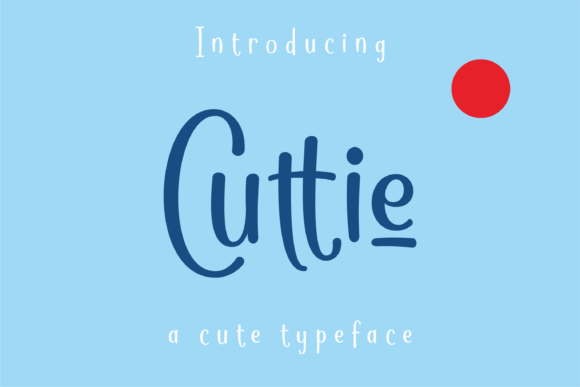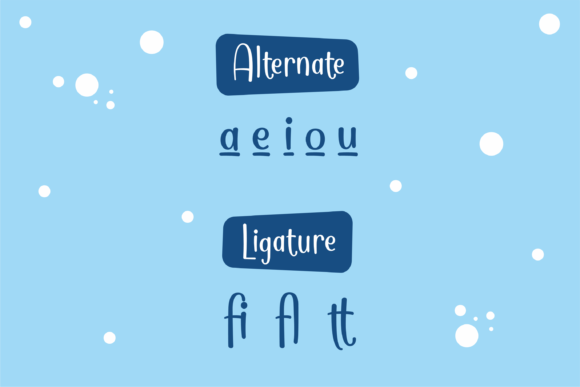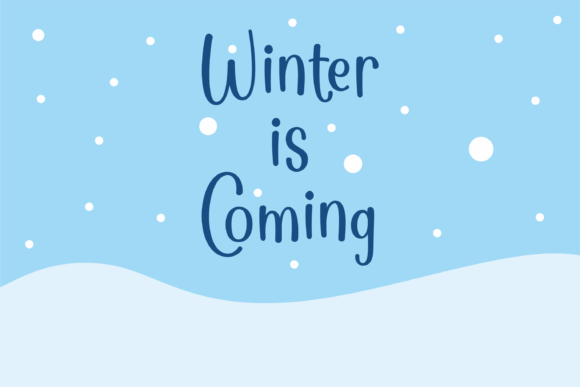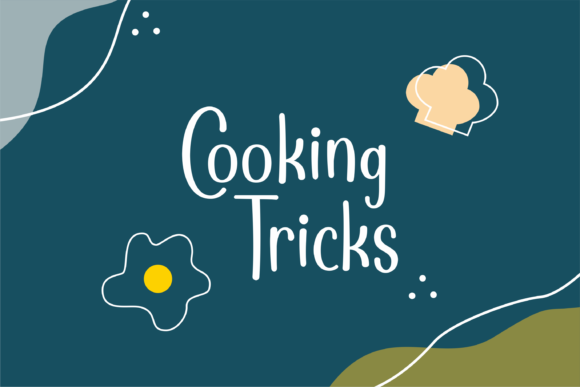
About Cuttie Font
Cuttie is a simple and incredibly sweet handwritten font.
This font is perfect for many sorts of projects, like quotes, greeting cards, invitation cards, children books, and so much more.
Add Cuttie to each of your creative ideas and notice how it makes them stand out!